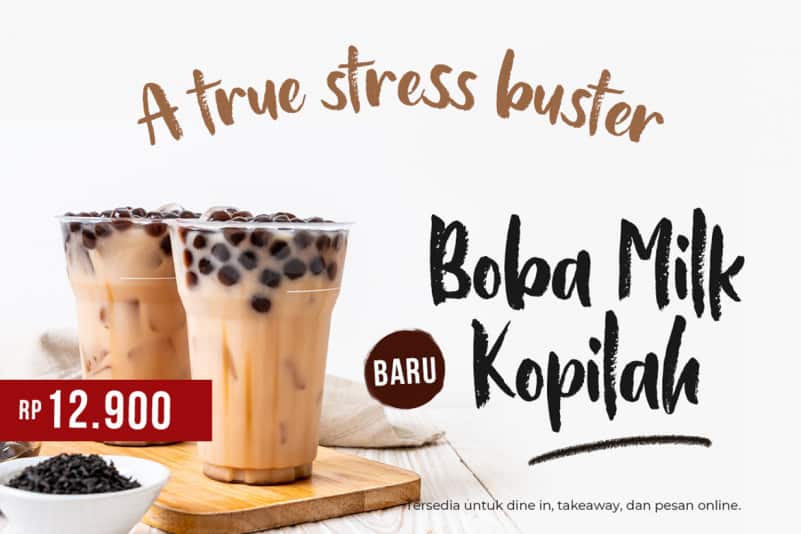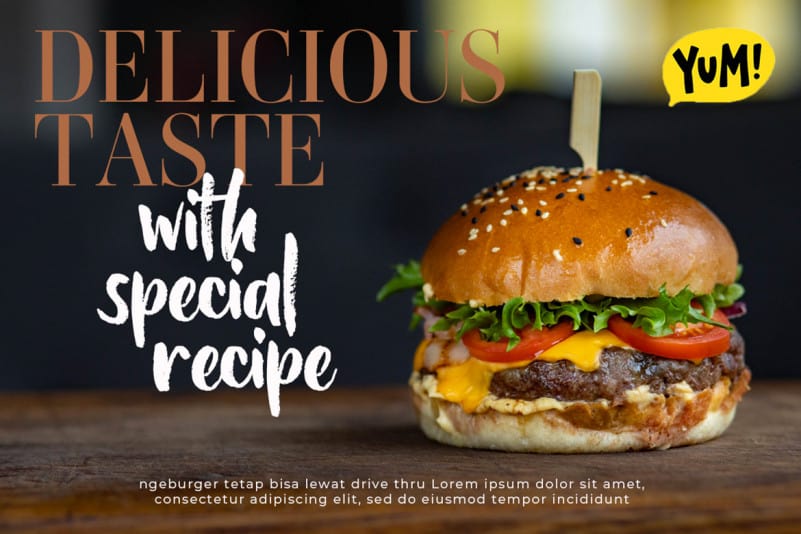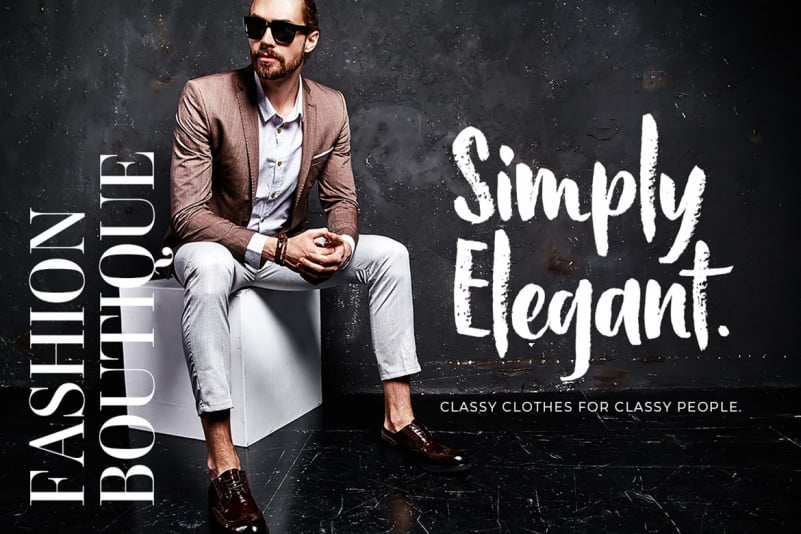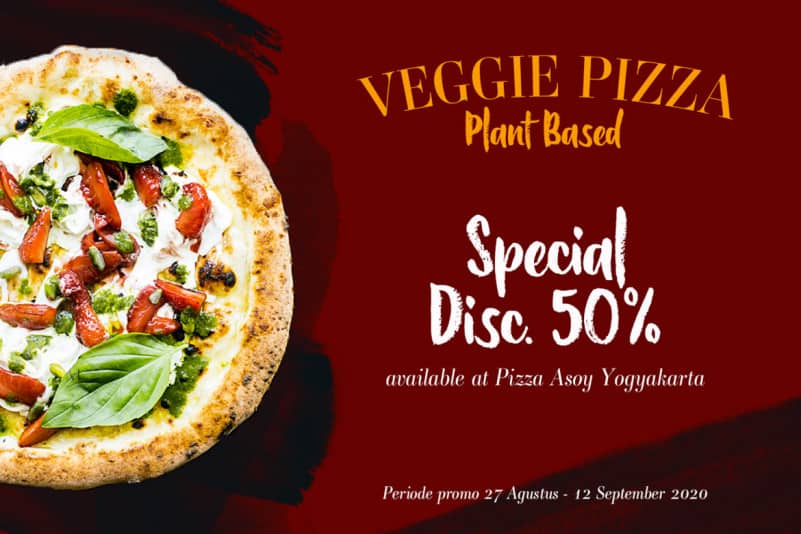
Bellanovie Brush Font
Bellanovie Brush Font is a handwritten font with a chalk texture. It is suitable for promotional designs, labels, packaging, branding, logotypes and much more.